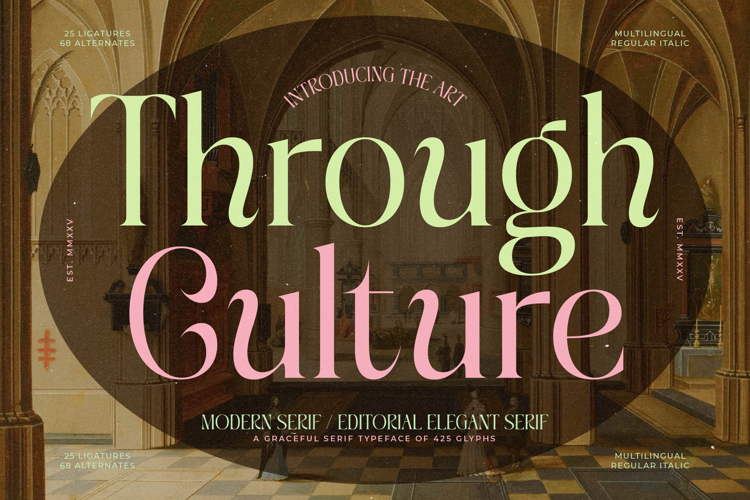
Through Culture - Editorial Elegant Serif
Elevate your design projects with a typeface that embodies sophisticated drama and timeless elegance. Through Culture - Editorial Elegant Serif is a high-contrast modern serif engineered for visual impact, blending the classic grace of historical typefaces with contemporary sharpness. Its bold, sweeping curves and pronounced weight transitions create a captivating rhythm on the page, ensuring that every headline, logotype, and large-format title demands attention. This is the definitive choice for designers seeking a truly refined aesthetic in their typographic layouts.
Unlock unparalleled creative flexibility with a comprehensive suite of OpenType features. Beyond the standard glyph set, Through Culture - Editorial Elegant Serif includes 25 strategic ligatures and 68 extensive alternates, allowing for detailed typographic customization and unique display pairings. This wealth of stylistic options ensures you can tailor the font's personality to match the specific needs of high-end clients, delivering results that are both unique and polished.
Expanding your reach globally is effortless with this expertly crafted typeface. With its extensive multilingual support, Through Culture - Editorial Elegant Serif adapts seamlessly across global markets, making it incredibly versatile for international projects. This robust linguistic capability guarantees brand consistency and clarity, whether you are designing content for European publications or worldwide digital campaigns.
Through Culture - Editorial Elegant Serif is perfect for projects requiring maximum impact and luxury communication. This typeface excels in luxury branding, bespoke product packaging, and the mastheads of high-fashion magazines. It is meticulously designed for editorial design where elegance and authority are paramount, providing the foundation for an unforgettable visual experience and ensuring your message is delivered with ultimate impact.